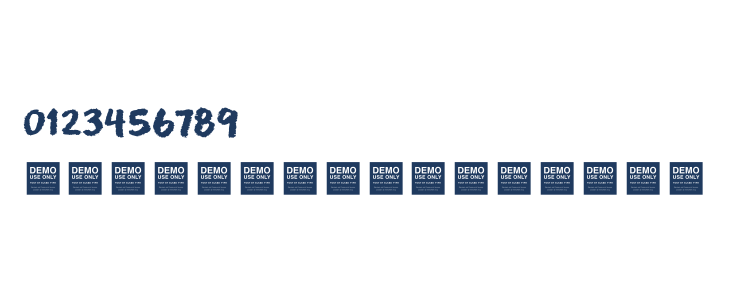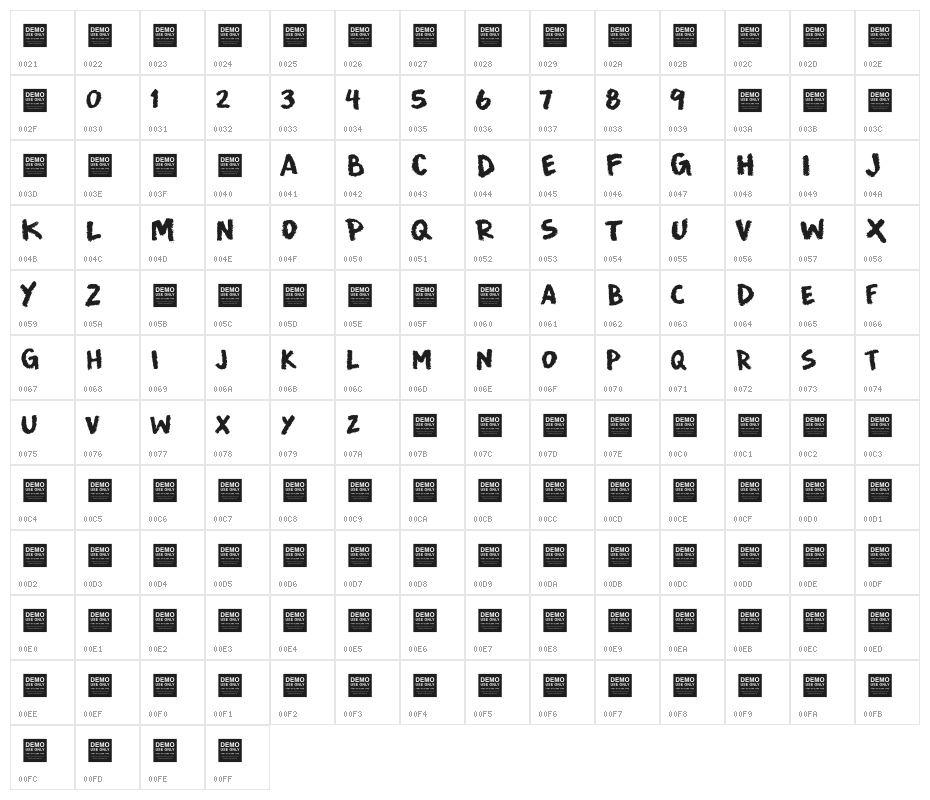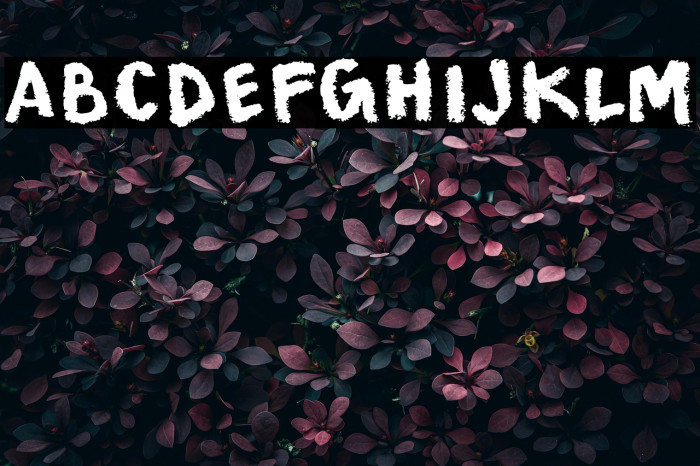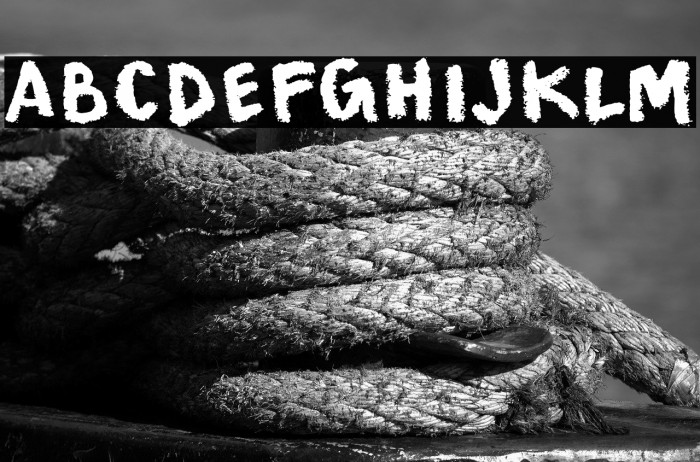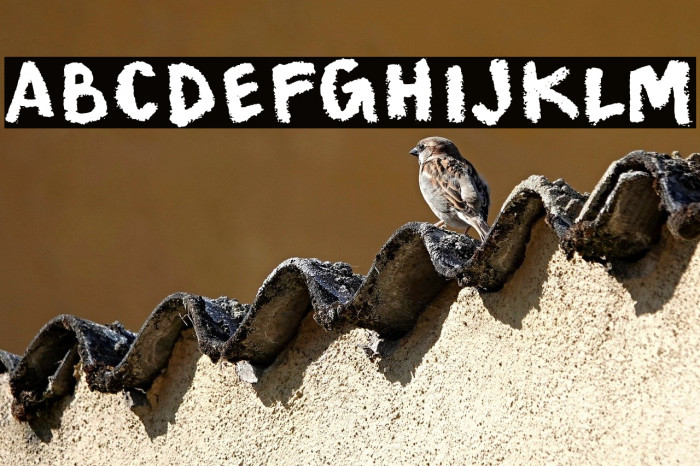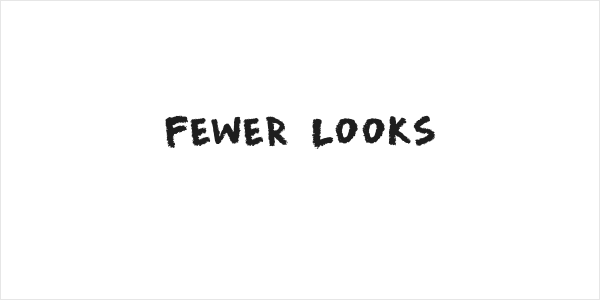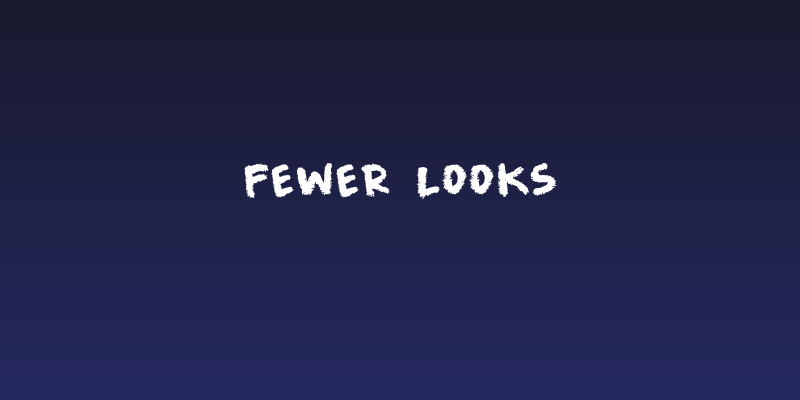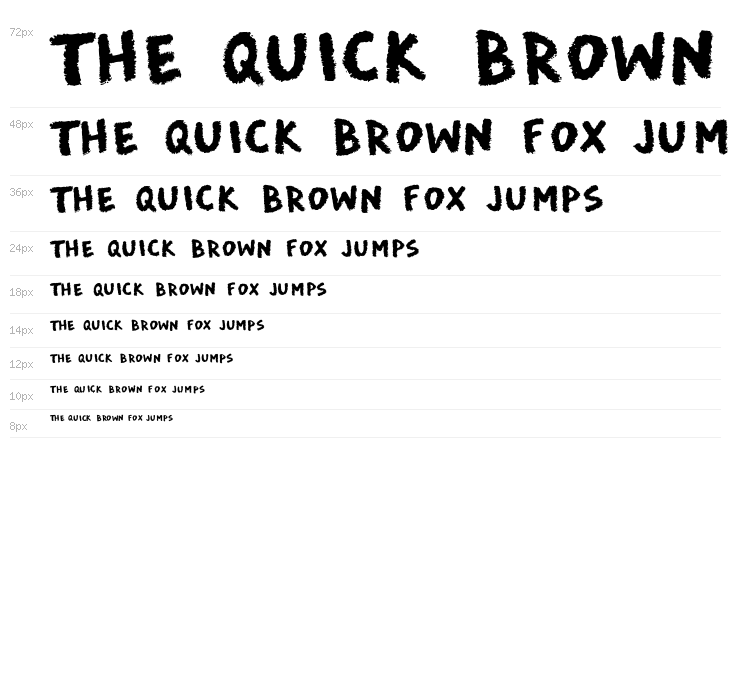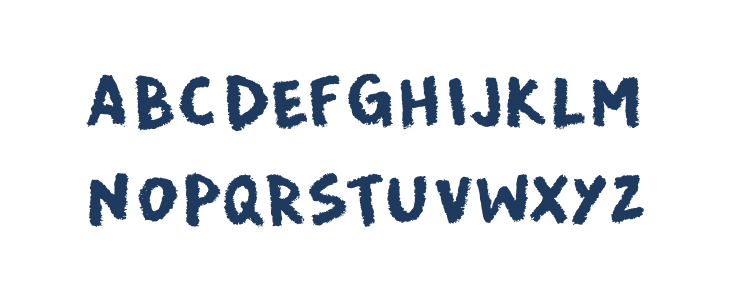
Fewer Looks Font
This font features a bold, brush-like texture that gives it a dynamic and energetic appearance. The characters are crafted with a rough, hand-painted style, creating a sense of movement and spontaneity. Each letter has a unique, slightly irregular shape, contributing to its artistic and expressive feel. The font maintains a consistent weight throughout, with thick strokes that enhance its boldness. This style is particularly eye-catching and can add a creative flair to any design project. The numbers and special characters are designed with the same brush-like texture, ensuring a cohesive look across all elements.
Overall StyleArtistic, Energetic, Expressive
Use CaseHeadlines, Posters, Branding
Proposed ProjectsIdeal for creative projects such as posters, album covers, branding, and social media graphics where a bold and artistic touch is desired.